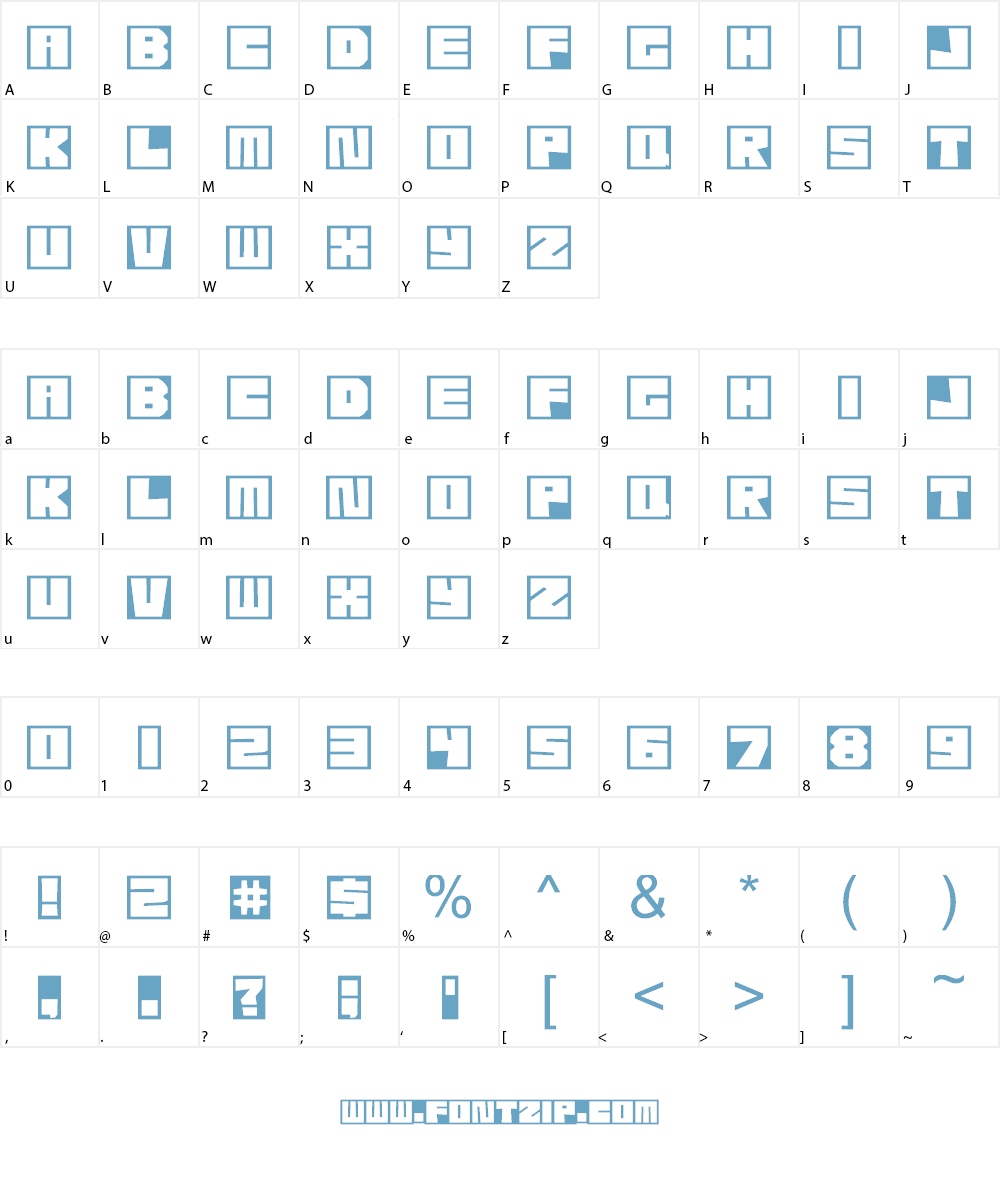
This full keyboard font is designed to look like geometric, woodblock lettering. It resembles somewhat the blocky initials of hiphop lithographer Maurits Cornelis, aka MC Escher